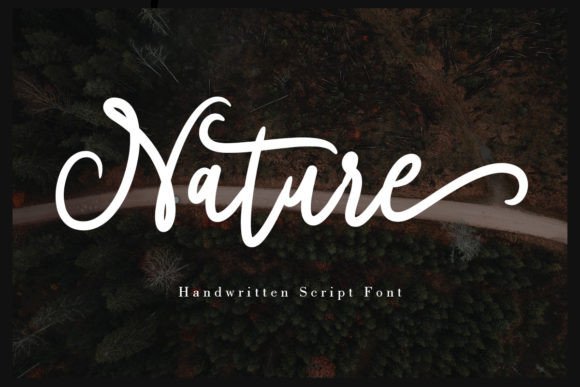
About Nature Font
Nature Font is a beautifully crafted handwritten script font that features a fun and dynamic brush texture. This font offers a sleek and modern script style, making it a fantastic choice for digital branding and a wide variety of design projects. With its natural flow and artistic brush strokes, Nature Font perfectly captures the essence of creativity combined with professionalism.
Designed with versatility in mind, Nature Font works wonderfully for logos, typography quotes, magazine or book covers, and website headers. Its distinct brush texture adds character and personality to any design, while maintaining a clean and polished appearance. Whether you are working on flyers, clothing, branding, or packaging design, Nature Font provides the stylish and contemporary look you need.
Thisfont’s natural, handwritten feel makes it perfect for projects that want to convey authenticity and creativity. It is equally effective for casual and elegant designs, offering designers the freedom to adapt it across multiple mediums and styles. The legibility of NatureFont ensures that your message remains clear while adding artistic flair.
NatureFont also includes a wide range of glyphs and stylistic alternates, giving you flexibility to customize your text for unique and captivating compositions. Its modern look is suitable for both digital and print projects, making it an essential tool for creative professionals and enthusiasts alike.
In summary, NatureFont is a perfect blend of modern design and handcrafted brush texture. It elevates any project, from branding and packaging to editorial layouts and web design. Add NatureFont to your creative toolkit today and watch your designs come alive with fresh, natural beauty.